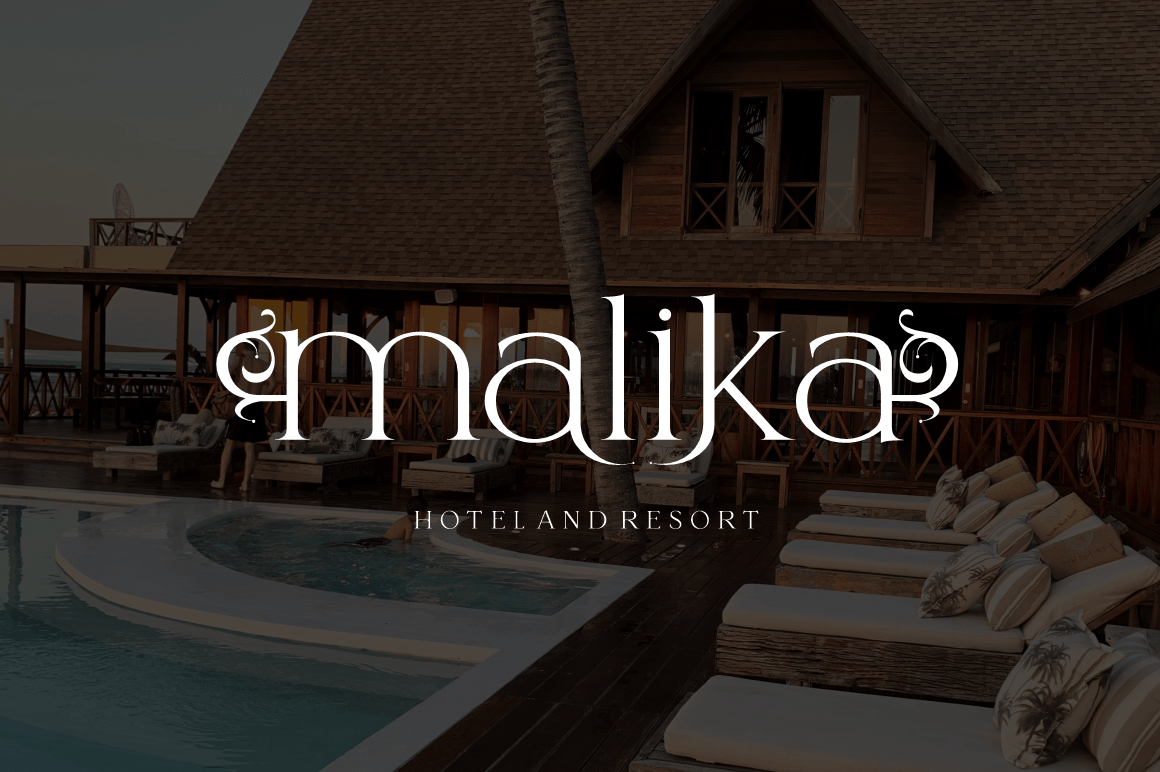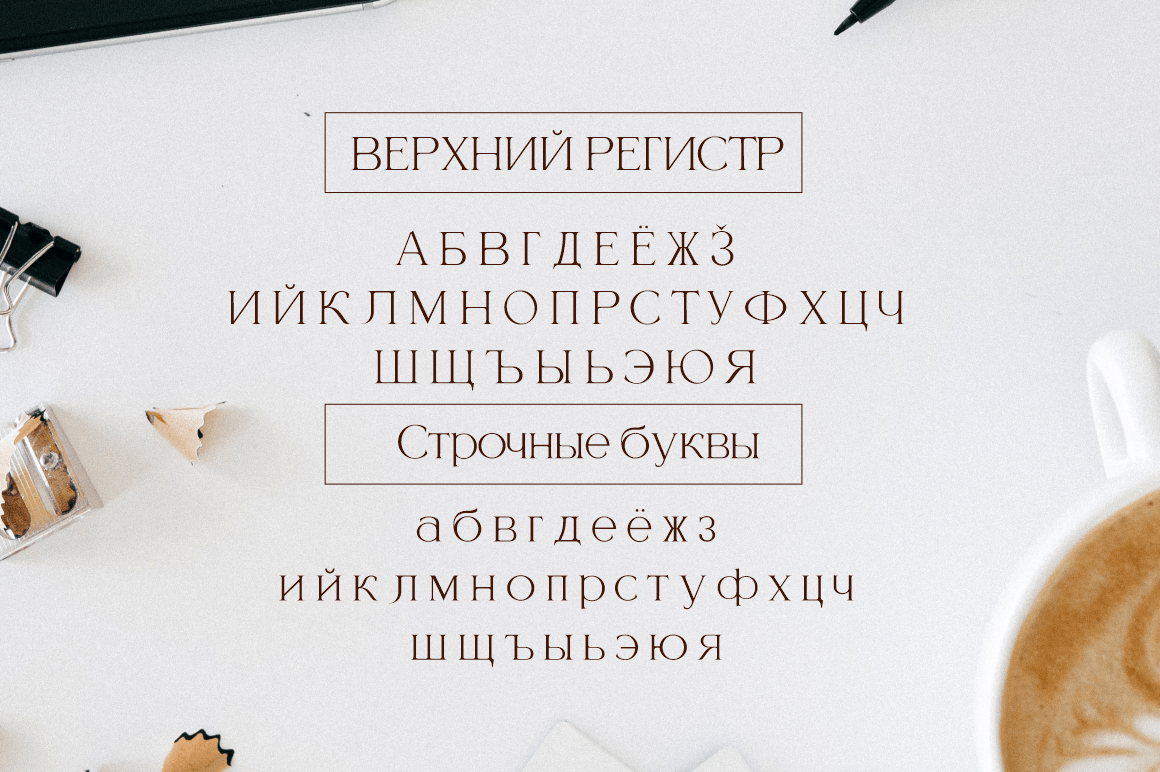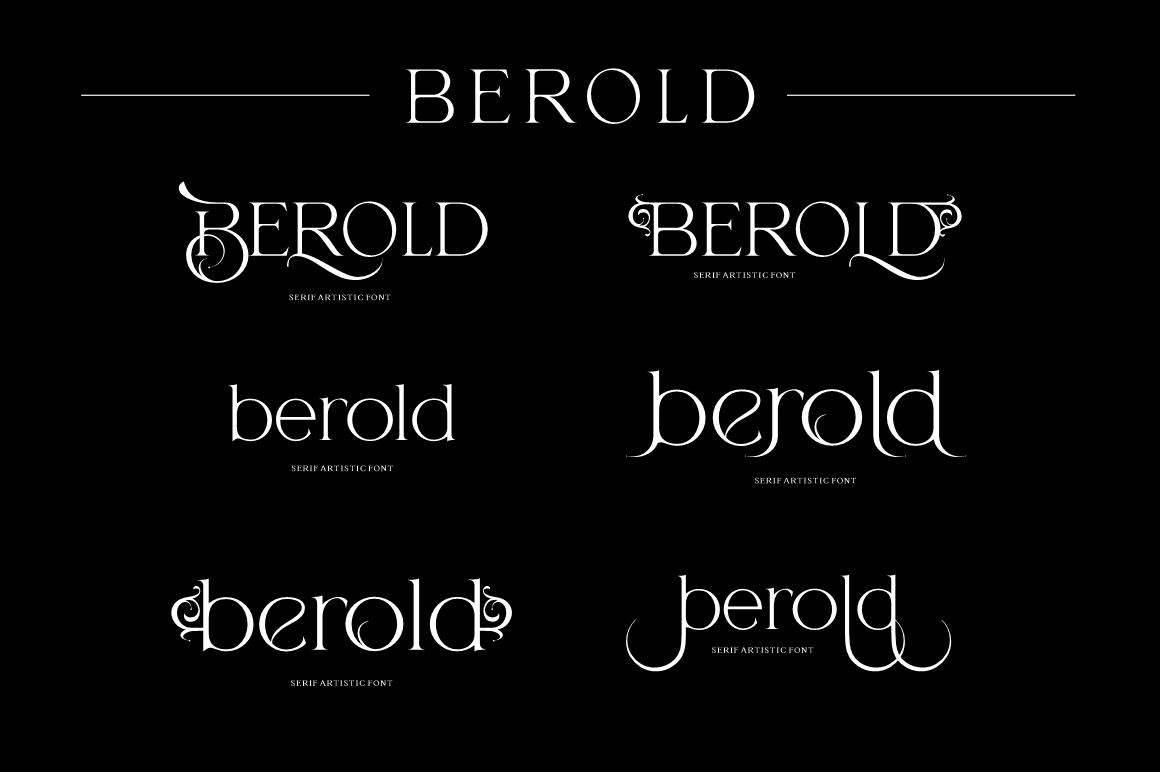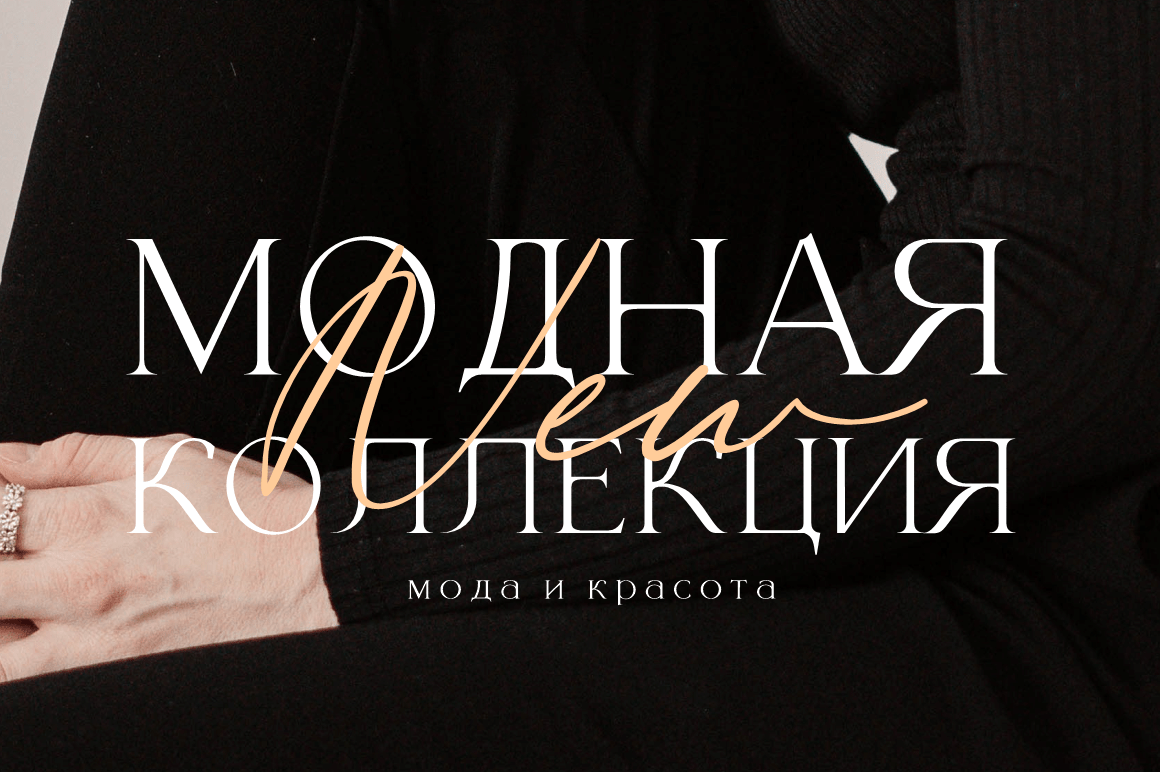
Berold Serif Font
This is a modern serif font in a classic style that has a distinct uppercase style. It’s perfect for fashion, blog sites, instagram, branding, invitations, business cards, weddings and more. Includes 3 alternative character sets UPPERCASE AND LOWERCASE for word start and end appearance, so your design will look even more unique and interesting.